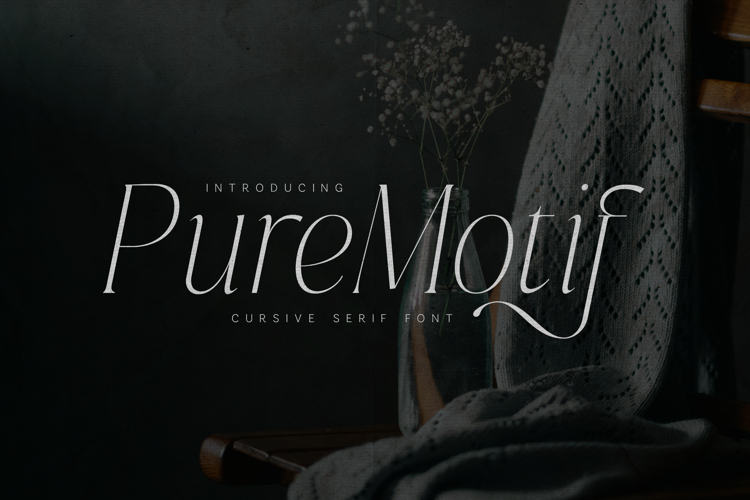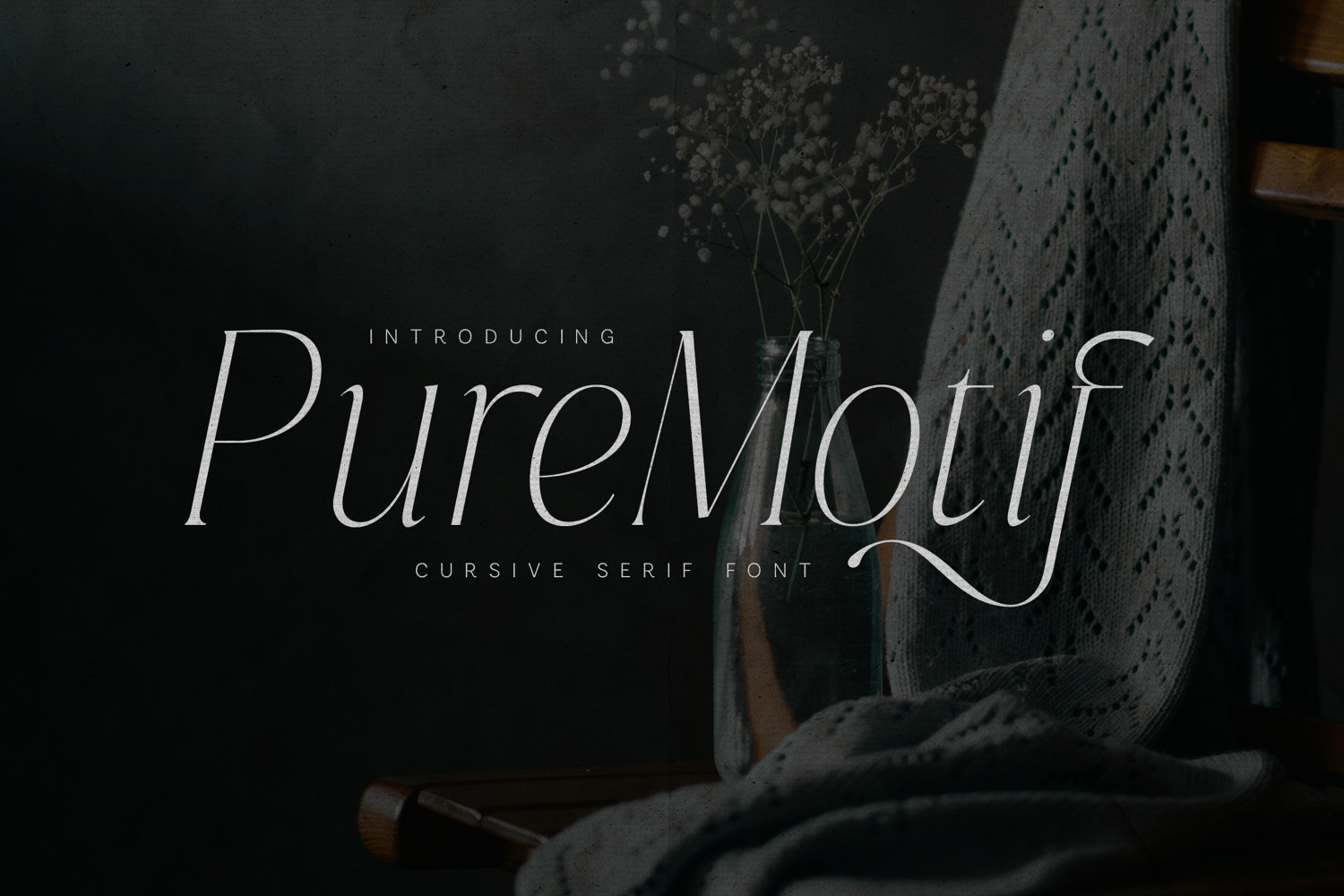
PureMotif Elegant Cursive Serif Font
PureMotif is an elegant cursive serif font designed for expressive typography, refined branding, and sophisticated visual storytelling. With graceful curves, flowing letterforms, and a timeless serif structure, PureMotif is perfect for logos, editorial design, invitations, packaging, quotes, fashion branding, and premium creative projects.
The font combines classic serif elegance with a soft cursive rhythm, creating a distinctive and emotional typographic voice. PureMotif works beautifully in headlines, short texts, and statement typography where character and mood matter.
PureMotif is crafted for designers who want elegance, softness, and expressive detail in their typography.